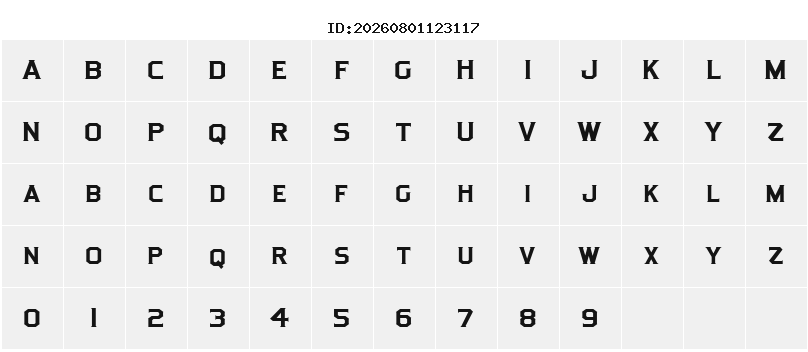
About LHF Antique Half Block BETA.ttf
LHF Antique Half Block BETA.ttf is a modern, elegant sans-serif font designed for ultimate readability and visual harmony. Perfect for branding, headlines, web design, and print materials.